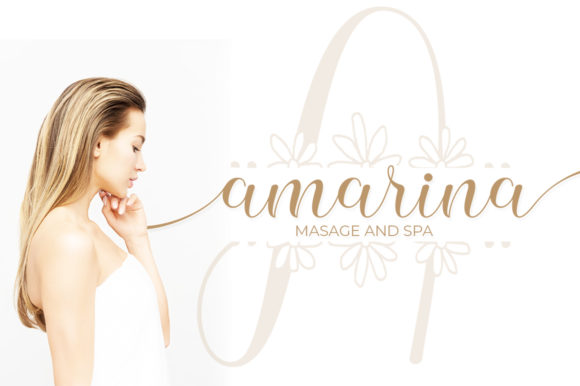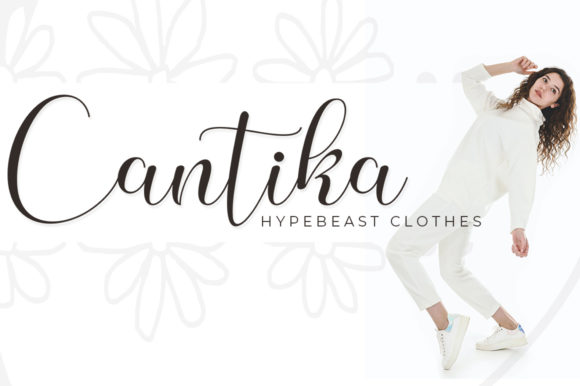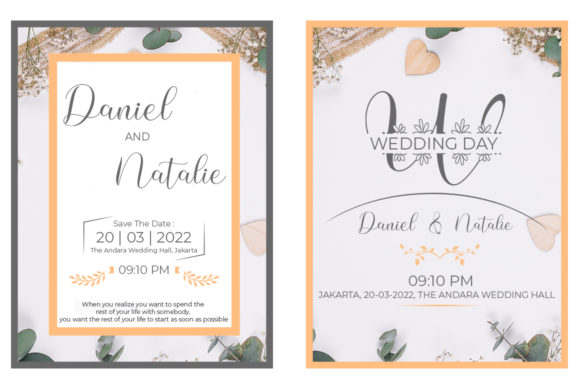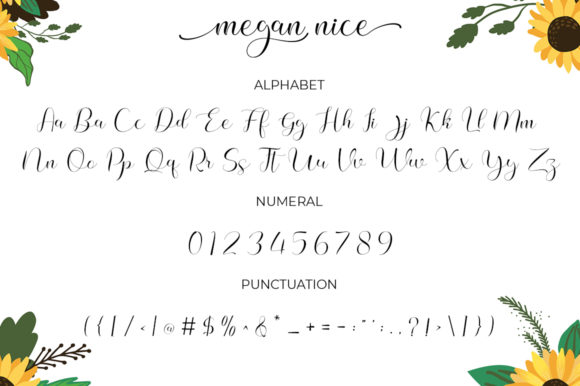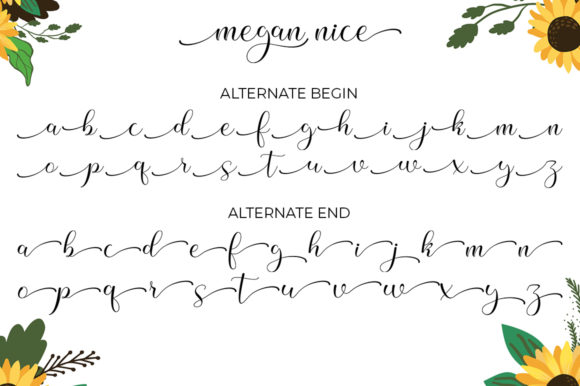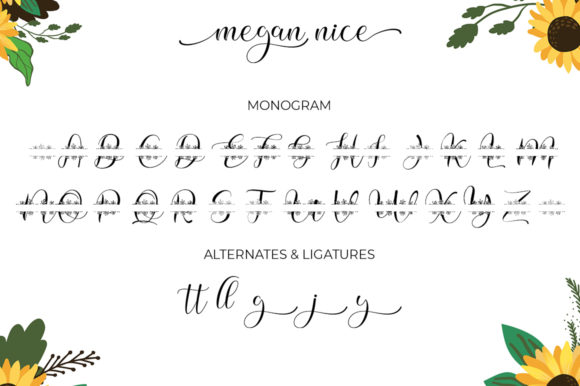
Introduction to Megan Nice Font
As designers, we’ve all been there – staring at a blank canvas, trying to spark that creative flame that sets our projects ablaze. For me, it’s the moment when the perfect font comes along and suddenly everything clicks into place. That’s exactly what happens when you discover the Megan Nice Font.
This lovely and timeless handwritten font is a game-changer for any design project. Its unique and beautiful touch brings a personal feel to logos, branding, and quotes, making your designs truly stand out. With its PUA encoded feature, you can easily access all the glyphs and swashes, giving you endless possibilities to express your creativity. Whether you’re working on a high-quality design resource or a free download, Megan Nice Font is the perfect addition to your toolkit.
As a valuable resource for designers, Megan Nice Font is a must-have for anyone looking to elevate their creative project. Its high-quality design and versatility make it an excellent choice for a wide range of applications, from logos to typography, and everything in between.
Key Features of Megan Nice Font
- High-quality design: This font features a sleek and modern design, perfect for creating visually appealing and professional-looking materials.
- Unique characteristics: Megan Nice Font features a unique blend of modern and minimalist design elements, making it stand out from other fonts in its category.
Honest Review: Megan Nice Font
I recently came across the Megan Nice Font while searching for a free design resource to enhance my creative project. As a designer, I was excited to try it out and see if it met my expectations.
Here’s what works well:
- ✨ The font is super elegant and sophisticated, perfect for high-end branding or magazine designs.
- ✨ The high quality of the font ensures that it looks great on various backgrounds, including transparent ones.
- ⚠️ The font doesn’t have a lot of versatility, which might limit its use in more complex design projects.
- ⚠️ There are only a few font weights available, which can make it difficult to achieve the desired level of contrast.
Overall, I think the Megan Nice Font is a solid choice for designers who need a simple, elegant font for their creative project. While it may not be the most versatile font out there, its high quality and free download make it a great resource to have in your design arsenal.
Tips for Getting the Most Out of Megan Nice Font
Use Megan Nice Font on a transparent background to create a clean and minimalist design. Experiment with different font sizes and styles to add visual interest to your project. You can also use Megan Nice Font in combination with other design elements to create a unique and eye-catching design.
Megan Nice Font is ideal for creative projects such as logos, business cards, and social media graphics. It’s also suitable for presentations, documents, and other written content where a high-quality font is required.